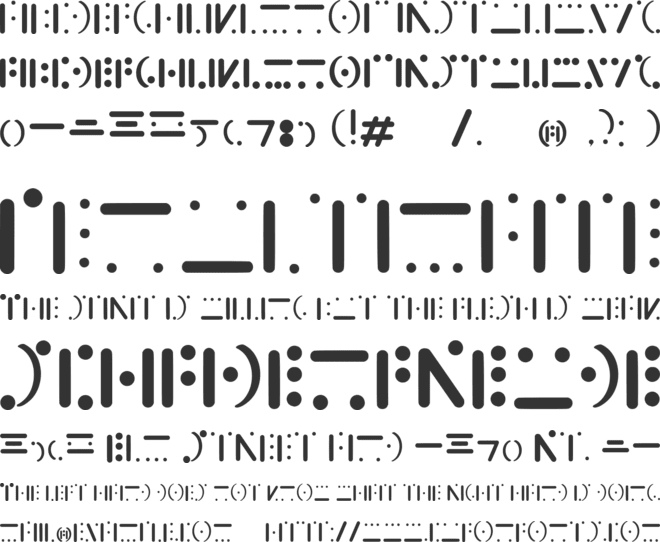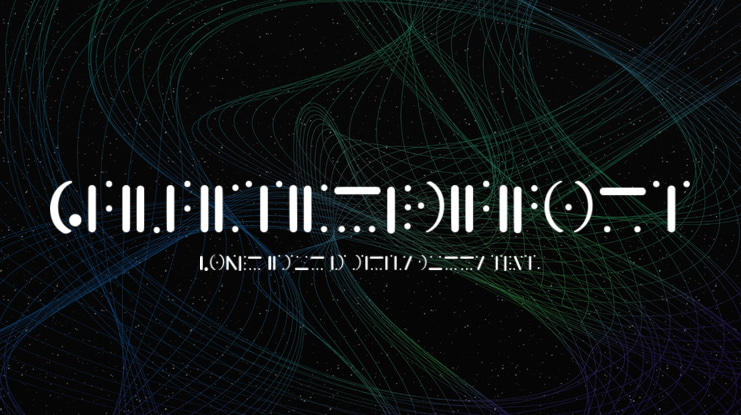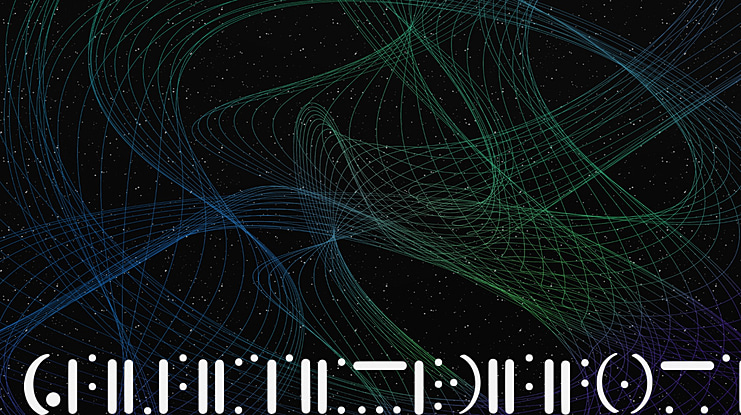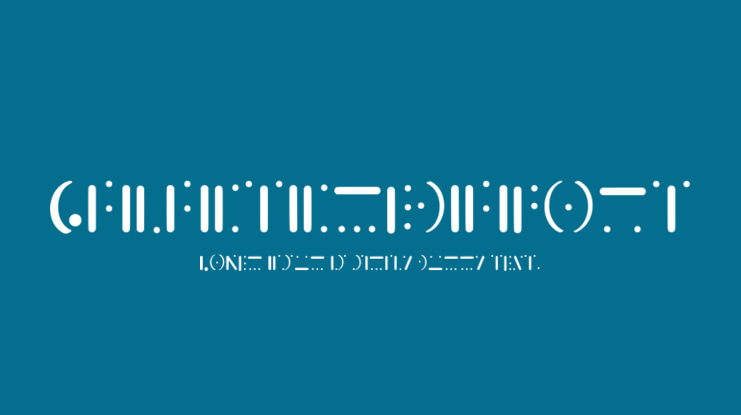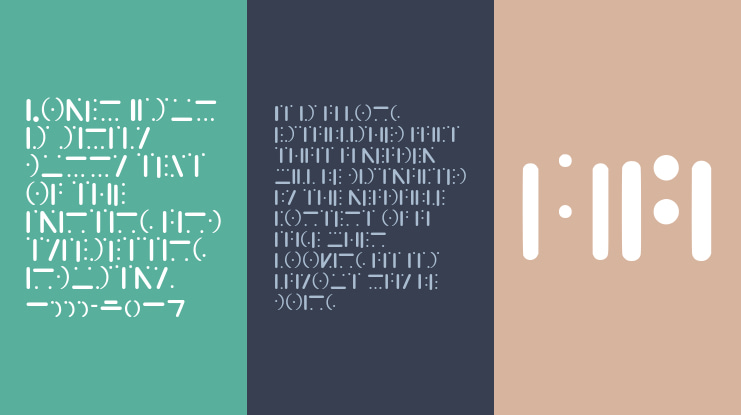
Galacticmediafont Font
Originally, this font was created for a manga that is in development. So this typeface belongs more than anything to this story: Aureus Graphers. I hope you read it and understand the background of it.